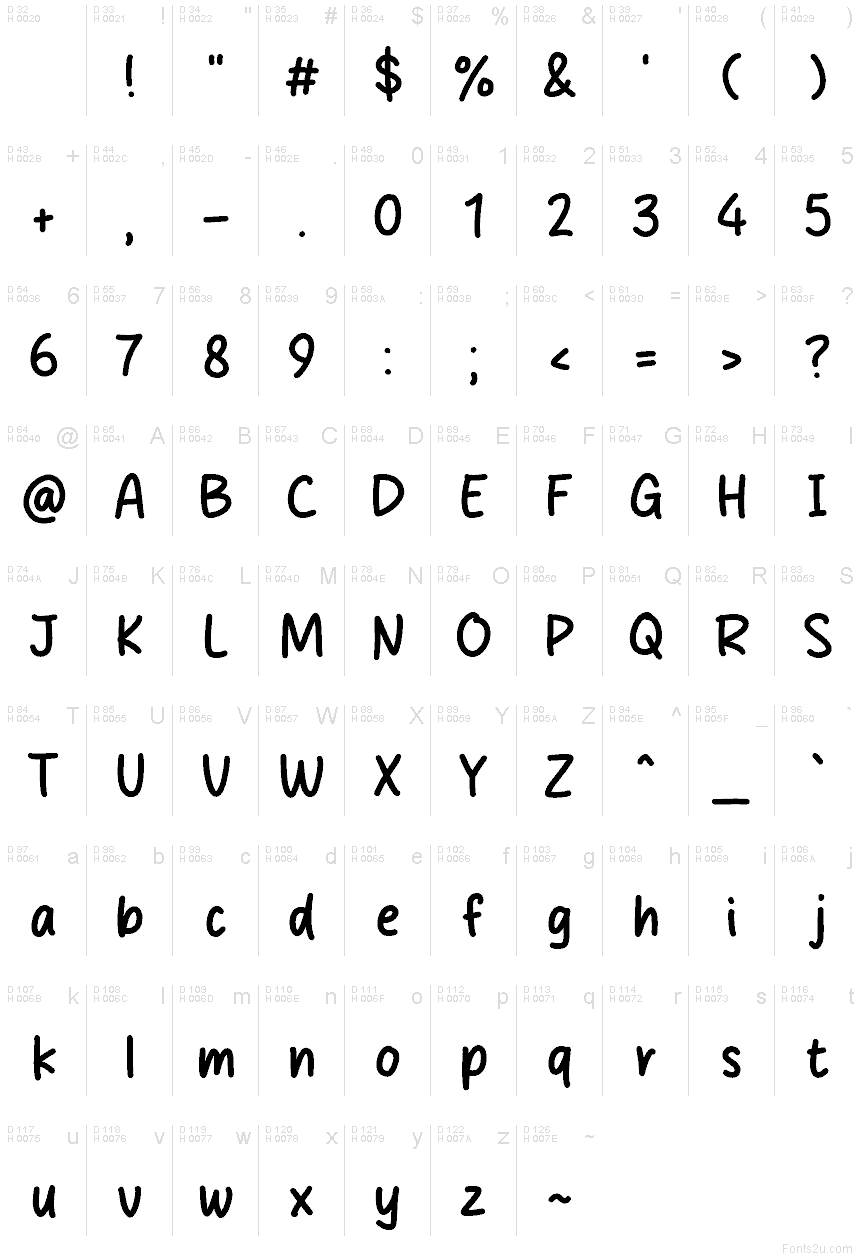
Rise Jeans
Rise Jeans font by Origin Type is a free handwritten font that captures casual vibes and smooth flow through its approachable aesthetic. This modern font has a heartwarming appearance of handwriting that gives it an artsy, uplifting, and cheerful presence. Get inspired to explore limitless typographic directions with the simplicity and engaging outlook of this typographic asset.
Use this gem for online captioning and legible text display on invitation cards, memes, personal photography projects, blogs, magazine covers, diaries etc. Other ideas include book covers such as ‘My summer adventure’, ad posters for brands (beverages), journal headings and subheadings, product wrapping covers etc.